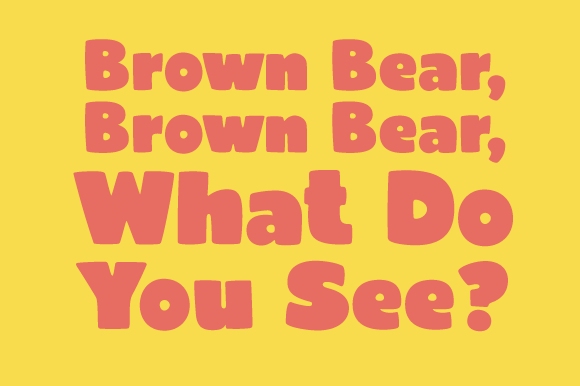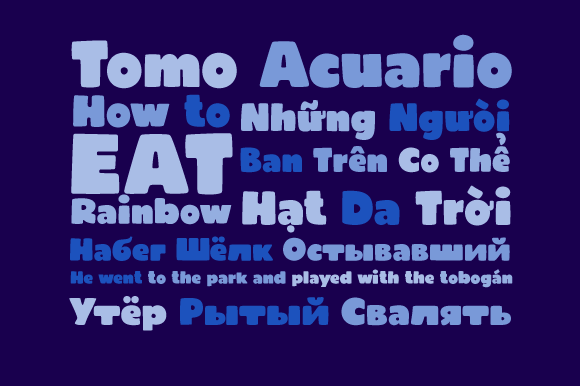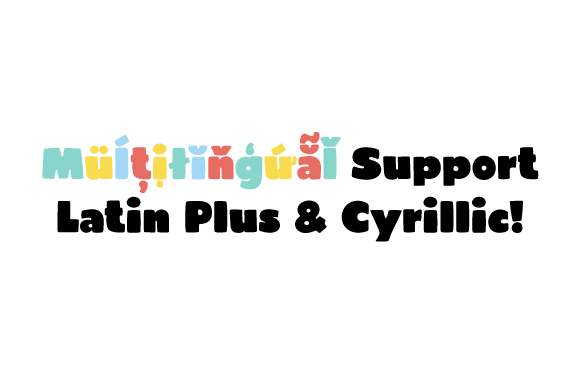
Introduction to Acuario Font
Acuario is a strong display font that’s fun and friendly.
It will look its best in any kids-themed project .
Acuario Font offers exceptional quality and versatility, making it a valuable addition to your design toolkit. Whether you’re creating for personal projects or commercial use, Acuario Font delivers professional results.